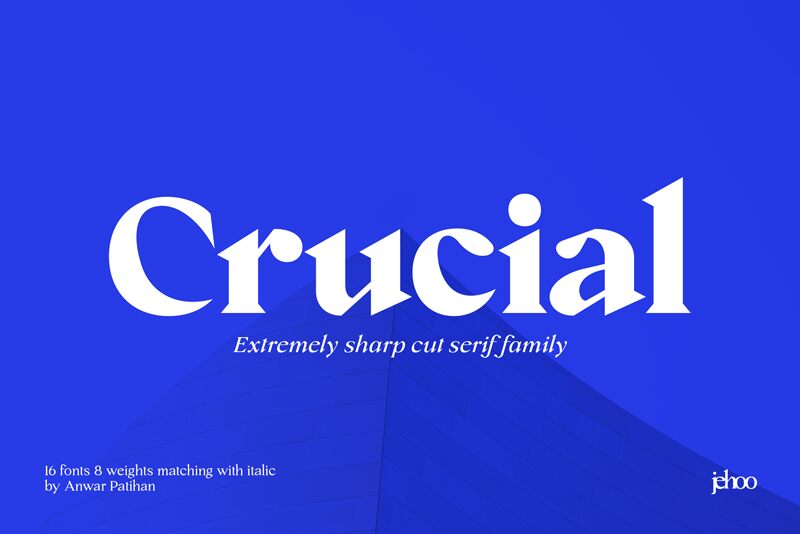
Meet Crucial Medium, the latest addition to the Crucial font family designed by Anwar Patihan. With its elegant serifs and balanced proportions, this typeface is perfect for any project that requires a touch of sophistication and refinement. Whether you're designing a wedding invitation, a menu for a high-end restaurant or creating branding materials for a luxury brand, Crucial Medium will elevate your design to new heights. Its timeless appeal and versatility make it an ideal choice for both print and digital applications. Get ready to impress your clients with this stunning serif font!